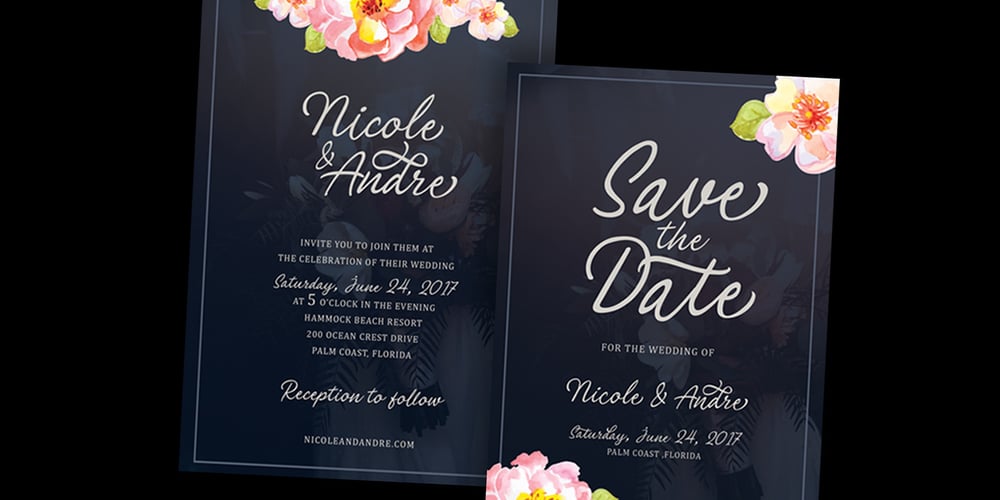
Philomena Script Font Family was designed by Hendry Juanda and published by Letterhend. Philomena Script contains 1 styles and family package options. Philomena is a signature script that brings the classy and luxury look. The natural feel of the signature works perfect for those who needs a typeface for headline, logotype, apparel, invitations, branding, packaging, advertising etc. This font is comes in uppercase, lowercase, punctuation, symbols, numerals, stylistic set alternate, ligatures, etc., as well as multilingual support.